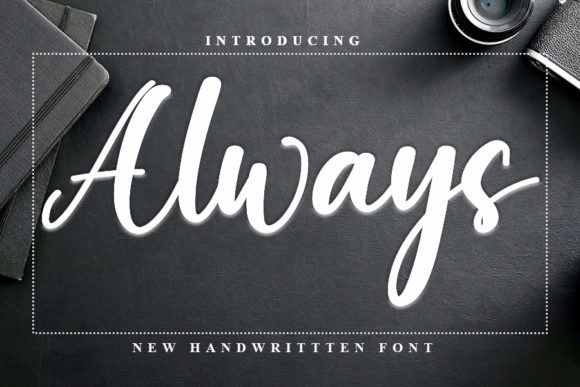
The Elusive Perfect Font: My Encounter with Always Font
I still remember the frustration of working on a project, hours spent searching for that one perfect font that would elevate my design from good to great. The client was specific: elegant, classy, and refreshing. I scoured the internet, tried out countless fonts, but nothing seemed to fit the bill. That was until I stumbled upon Always Font. ✨
An Honest Review of Always Font
Always Font has been a game-changer for me, and I’m excited to share my thoughts on this lovely script font.
- ✨ Elegant and classy: Always Font exudes sophistication, making it perfect for designs that require a touch of luxury.
- ✅ Delicate and refined: The font’s subtle curves and lines create a beautiful, eye-catching effect.
- 💫 Versatile: Always Font can be used for a wide range of projects, from wedding invitations to branding and packaging.
- 🤔 Limited use in body text: Due to its script nature, Always Font may not be the best choice for lengthy paragraphs.
- ⚠️ Occasional kerning issues: As with any font, some manual kerning adjustments might be necessary to achieve optimal results.
- Experiment with OpenType features, such as ligatures and stylistic alternates, to add visual interest.
The Story Behind Always Font
Always Font was crafted with love by a talented type designer who aimed to create a font that would bring a touch of elegance to any design. Inspired by classic calligraphy and refined typography, Always Font was born. 💫
| What type of projects is Always Font best suited for? | Always Font is versatile and can be used for various projects, such as wedding invitations, branding, packaging, and more. |
| Can I use Always Font for body text? | While Always Font is beautiful, it’s recommended to use it for headings or short paragraphs due to its script nature. |
| Does Always Font support OpenType features? | Yes, Always Font supports OpenType features, such as ligatures and stylistic alternates, which can add visual interest to your designs. |